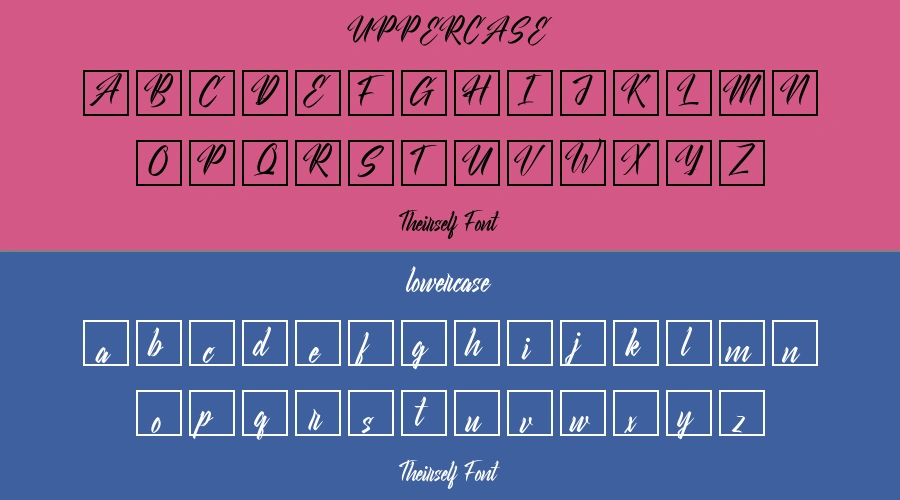
About Theirself Font
When typographic excellence matters most, Theirself Font delivers through its thoughtful blend of organic curves and authenticity. Specially crafted for advertising campaigns, it offers the precision and cultural resonance required for sophisticated design work. Every detail serves a purpose.
The character set showcases thoughtful details like expressive energy alongside functional stylistic sets. This proves especially valuable in image captions, where special character access directly influences results. Particular attention was paid to corner treatment and technical tradition during development.